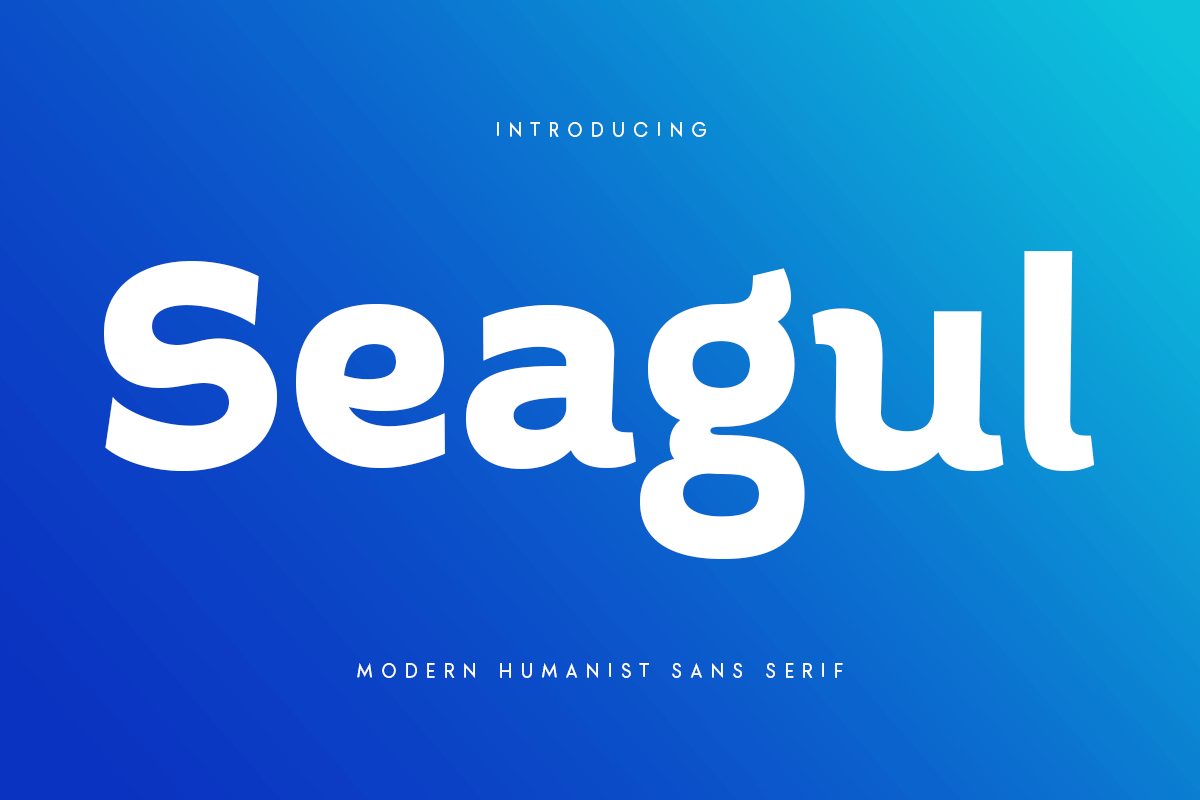
Seagul
-Modern Humanist Sans Serif
Seagul
A new San Serif Font that we created special for Headline, Title and more stand out typography needs. It's so perfect to add your style and headline overview. And specially for Headline font, we crafted for unique style and modern feels so enjoy to create any project that will show your main idea out.